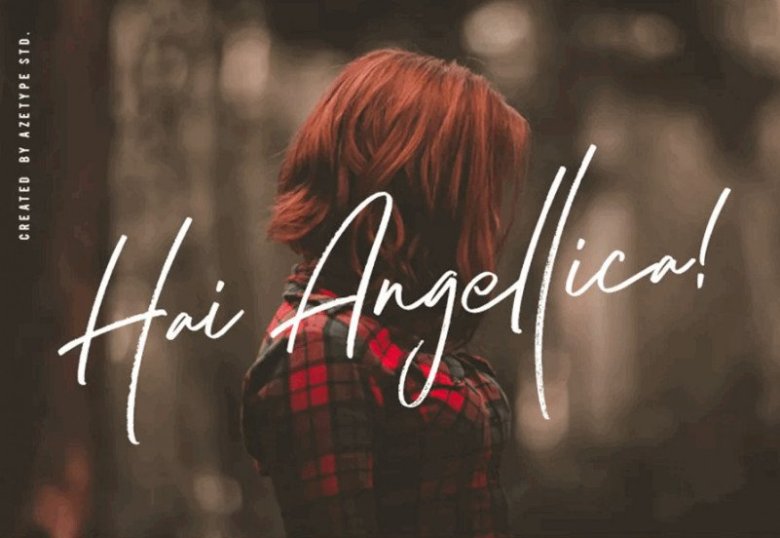
Hai Angellica Handwritten Font
Thank you for checking Hai Angellica Font! It is designed and shared by Azetype. Hai Angellica Handwritten Font is handmade signature style font with stunning characters. Ideal for logos, name tag, handwritten quotes, product packaging, merchandise, social media & greeting cards. It contains a full set of lower & uppercase letters, a large range of punctuation, numerals, and multilingual support.